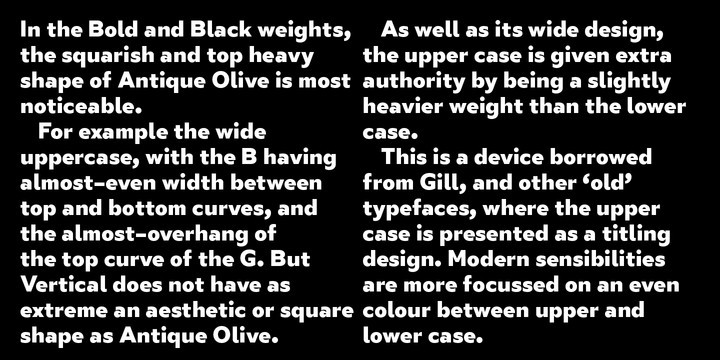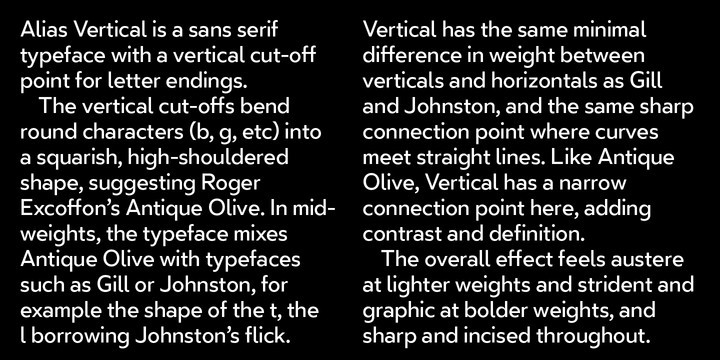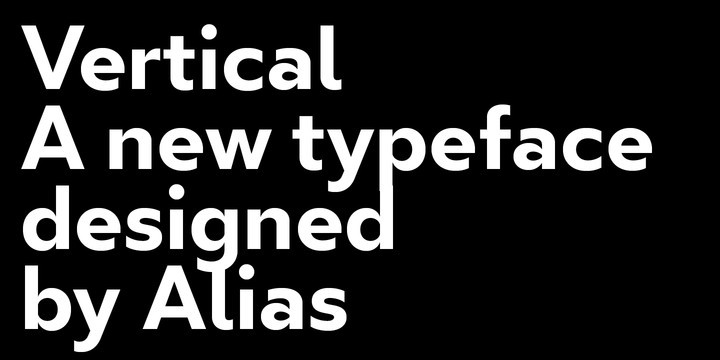
Vertical Font Family
Alias Vertical is a sans serif typeface with a vertical cut-off point for letter endings.
The vertical cut-offs bend round characters (b, c, o, etc) into a squarish, high-shouldered shape, suggesting Roger Excoffon’s Antique Olive. In mid-weights, the typeface mixes Antique Olive with typefaces such as Gill or Johnston, for example the shape of the t, the l borrowing Johnston’s flick. Vertical has the same minimal difference in weight between verticals and horizontals as Gill and Johnston, and the same sharp connection point where curves meet straight lines. Like Antique Olive, Vertical has a narrow connection point here, adding contrast and definition. The overall effect feels austere at lighter weights and strident and graphic at bolder weights, and sharp and incised throughout.
In the Bold and Black weights, the squarish and top heavy shape of Antique Olive is most noticeable. For example the wide uppercase, with the B having almost-even width between top and bottom curves, and the almost-overhang of the top curve of the G. But Vertical does not have as extreme an aesthetic or square shape as Antique Olive.
As well as its wide design, the upper case is given extra authority by being a slightly heavier weight than the lower case. This is a device borrowed from Gill, and other ‘old’ typefaces, where the upper case is presented as a titling design. Modern sensibilities are more focussed on an even colour between upper and lower case.
Vertical was originally intended as a sister typeface to Ano, like AnoAngular or AnoStencil. Vertical developed into a similar but separate design. Ano was designed for use in Another Man — in its modular, circle-base design, and the way there aren’t the amendments usually made in bolder weights to ensure letter clarity. This is for layouts where different weights are used together in different sizes so that the overall letter weight is the same, a feature of the magazine. Where Ano is simple and graphic, Vertical has nuance and texture. It is a pragmatic, utility design. In the balance between graphic and typographic, its focus is the latter.